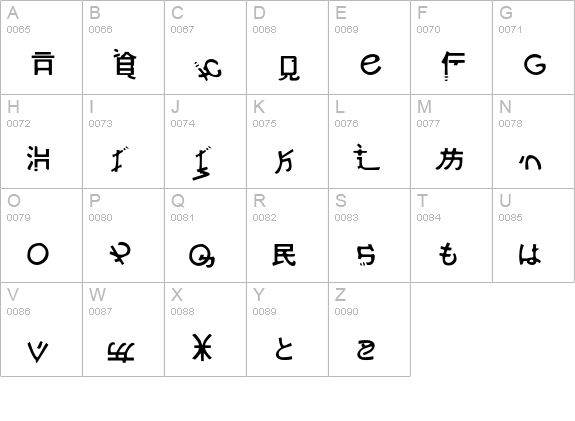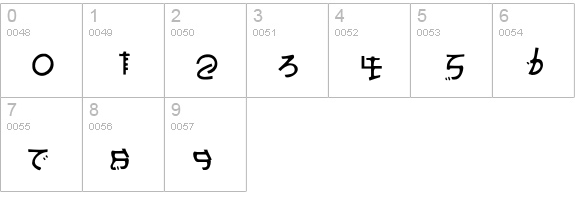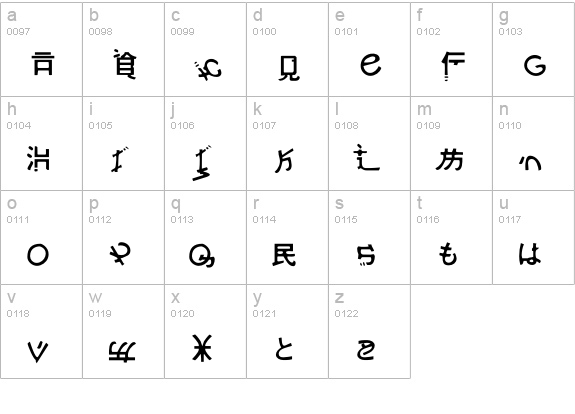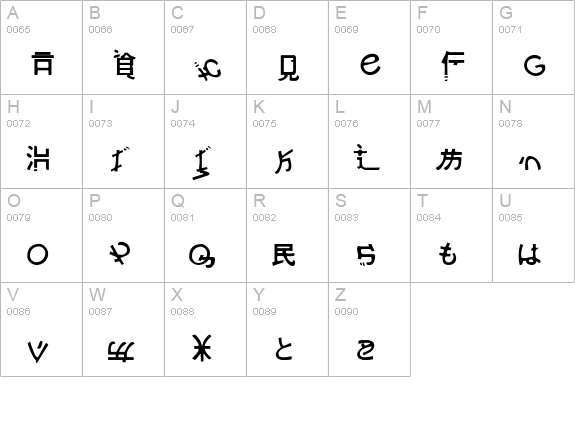
Mothra Font Details
Introducing Mothra font, a captivating and elegant typeface that effortlessly combines modern sophistication with timeless charm. This font is inspired by the delicate beauty of a moth's wings, showcasing intricate details and graceful curves that add a touch of luxury to any design project. Mothra font is perfect for creating stunning logos, branding materials, wedding invitations, and more. Its versatile nature allows it to adapt to a variety of styles, whether you're aiming for a classic and refined look or a more contemporary and edgy feel. And the best part? Mothra font is completely free to download at FontsMarket.com! Now you can elevate your designs with this exquisite font without breaking the bank. Don't miss out on this opportunity to add a touch of elegance to your creative projects with Mothra font. Download it today and let your creativity soar!